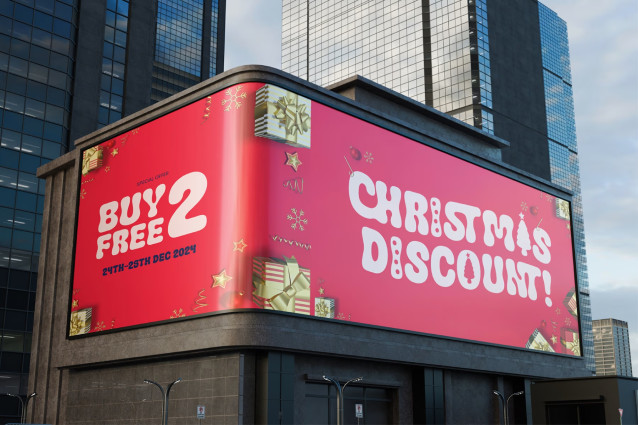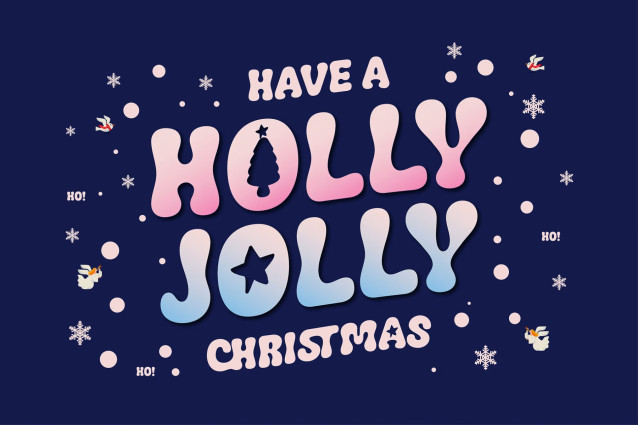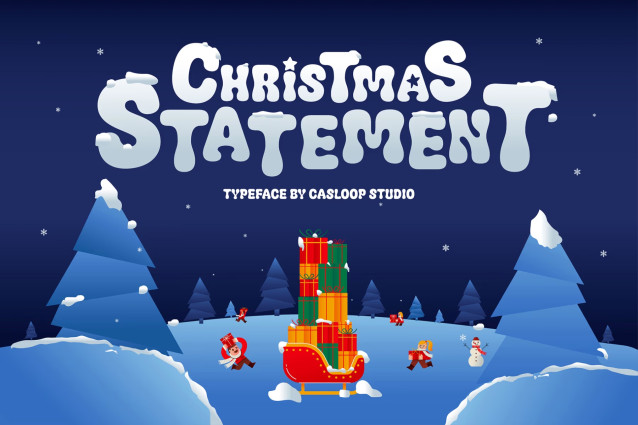
Christmas Statement is a playful bubble typeface with rounded, fluid forms and a groovy rhythm that gives every word a soft yet expressive personality. Its chunky letterforms feel cheerful and approachable, while the stylistic alternates add extra character through festive star, Christmas tree, and decorative shapes.
Perfect for Christmas campaigns, holiday cards, kids’ designs, gift packaging, posters, seasonal branding, social media graphics, and celebratory headlines. Recommended pairing with Fredoka, Baloo 2, Nunito, Cooper Black, ITC Souvenir, Genty.